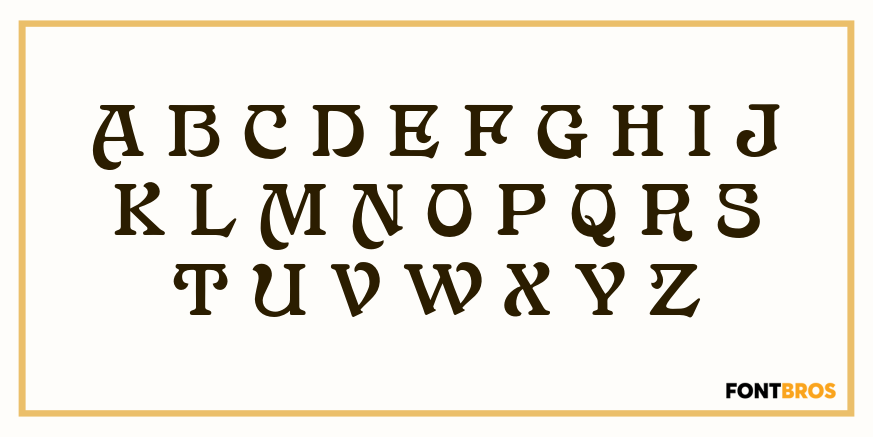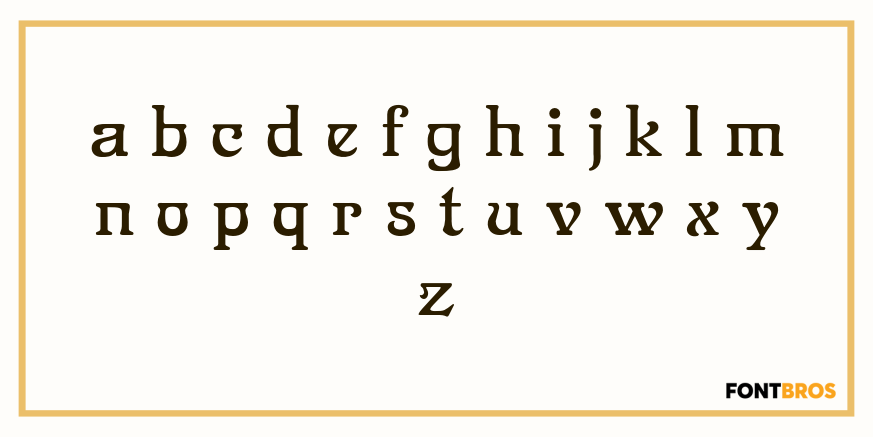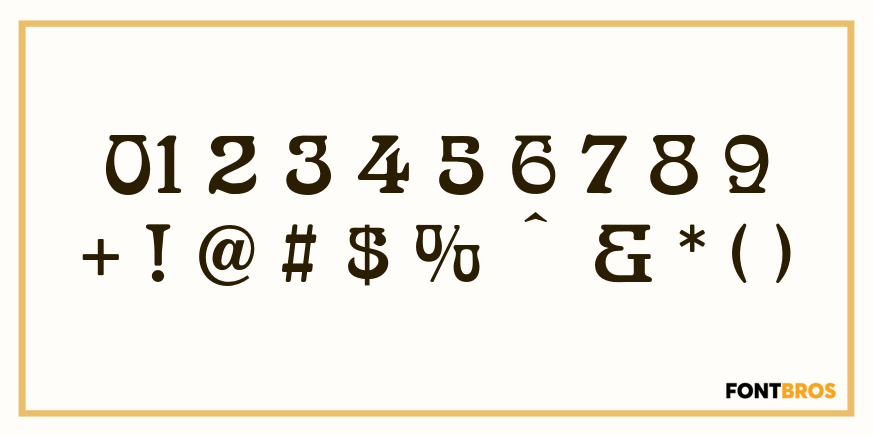
Palmetto
Font Family by Solotype
Originally issued as Palm from the A. D. Farmer Foundry in New York, about 1887.
This is a good early example of the transition from the ruffles and fluorishes of Victorian fonts to the more restrained decoration that came to be called Art Nouveau.